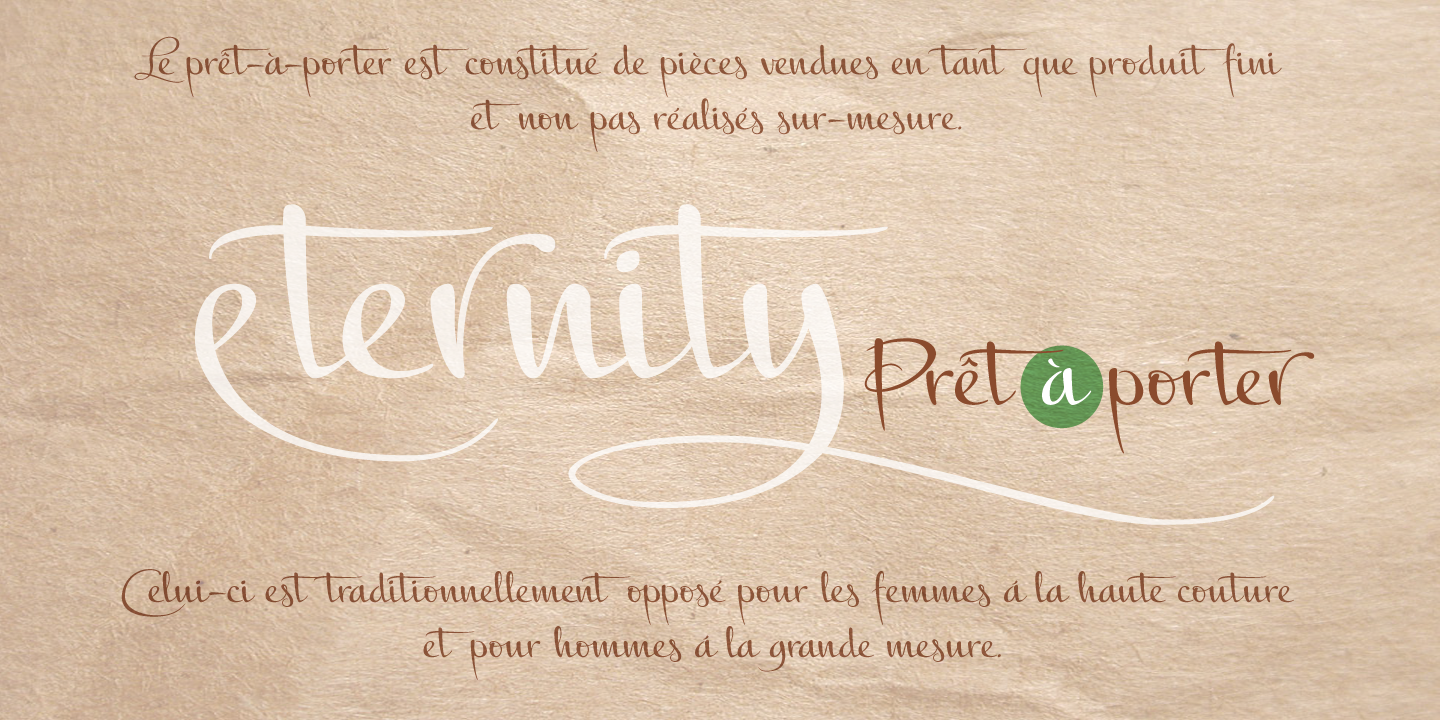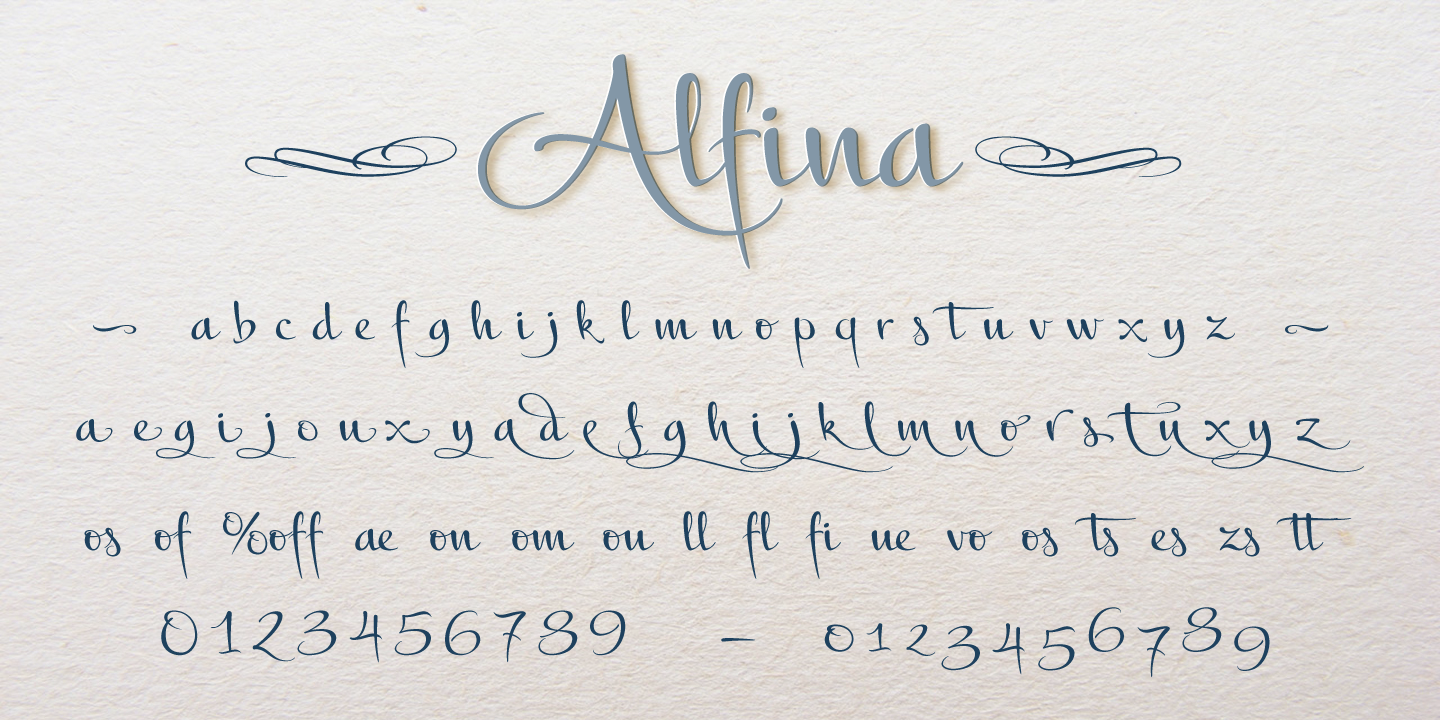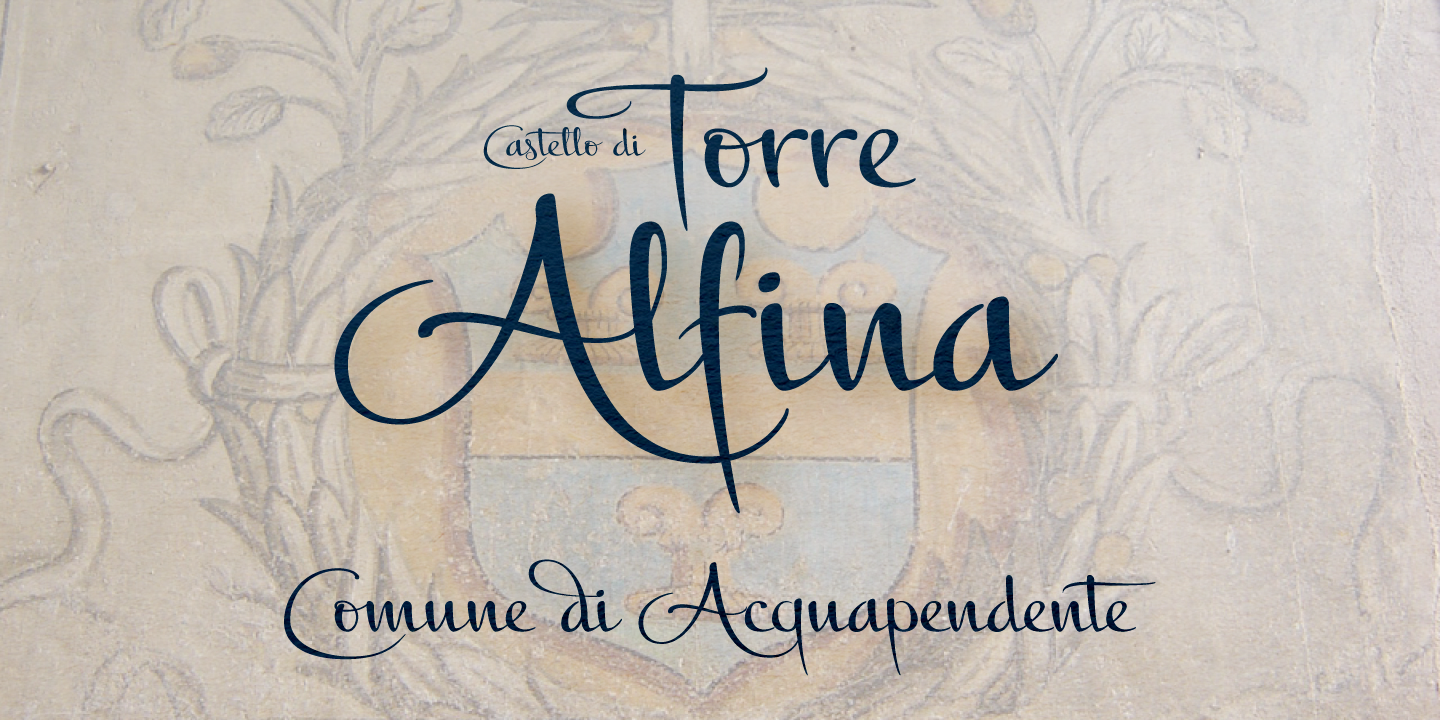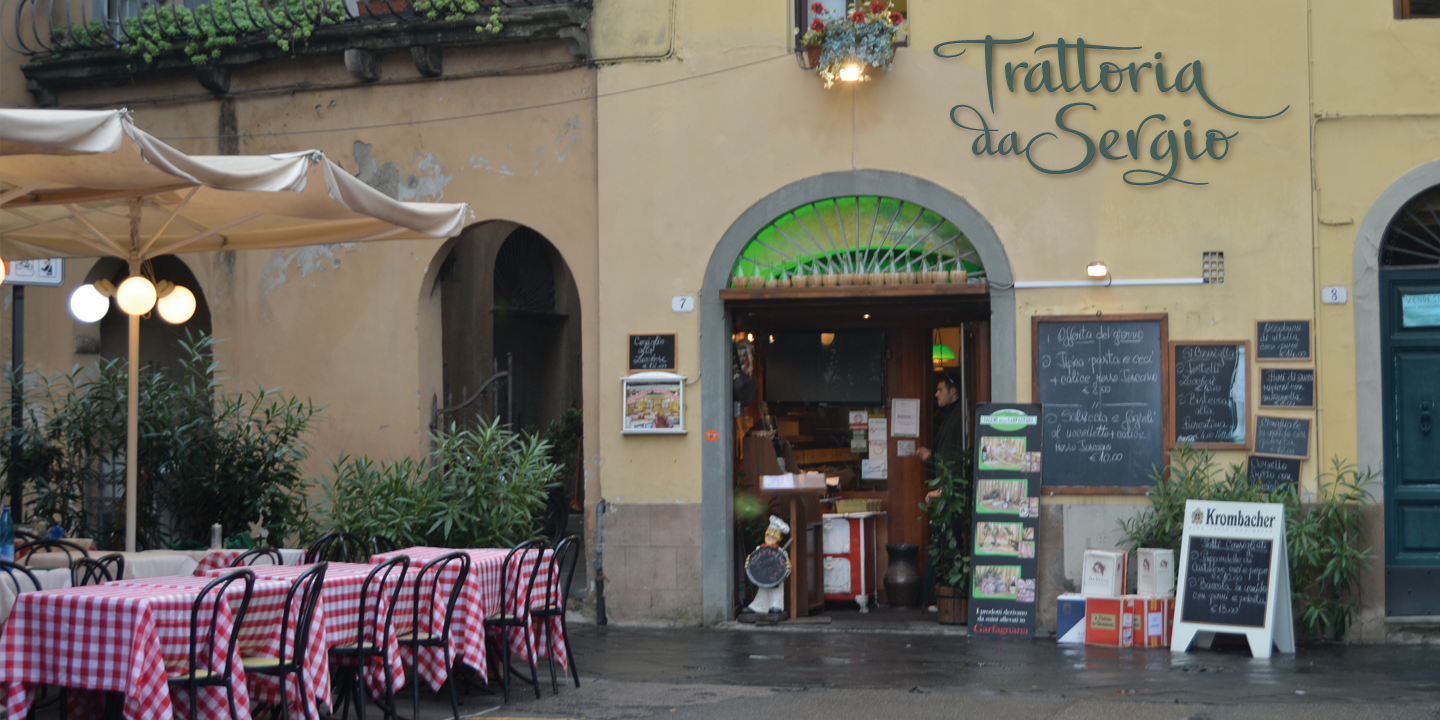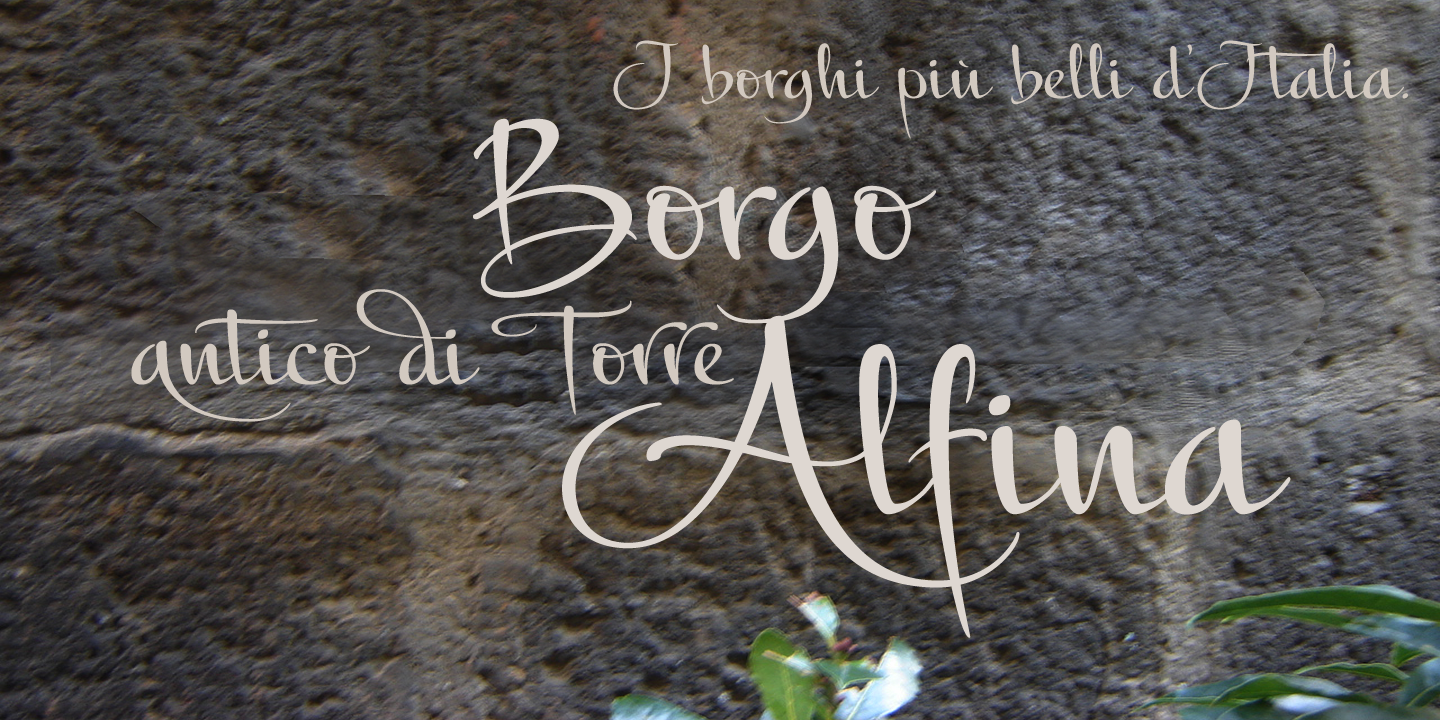
Alfina
Inspired by Italian History
Alfina is a chancery-style typeface with a contemporary spirit, inspired by the enchanting Italian town of Torre Alfina—one of the most beautiful medieval villages in the country, perched on the edge of the Alfina plateau just a few kilometers from Orvieto. The castle’s surroundings are steeped in history, with roots reaching back to the Lombard kingdom of the 7th century.
A Contemporary Chancery Style
Alfina features smooth, flowing lines, ultra-slender capitals, and delicately layered fine strokes. Its stylistic alternates play a central role in its personality, and a rich array of OpenType features adds depth, versatility, and distinctive charm to the typeface.